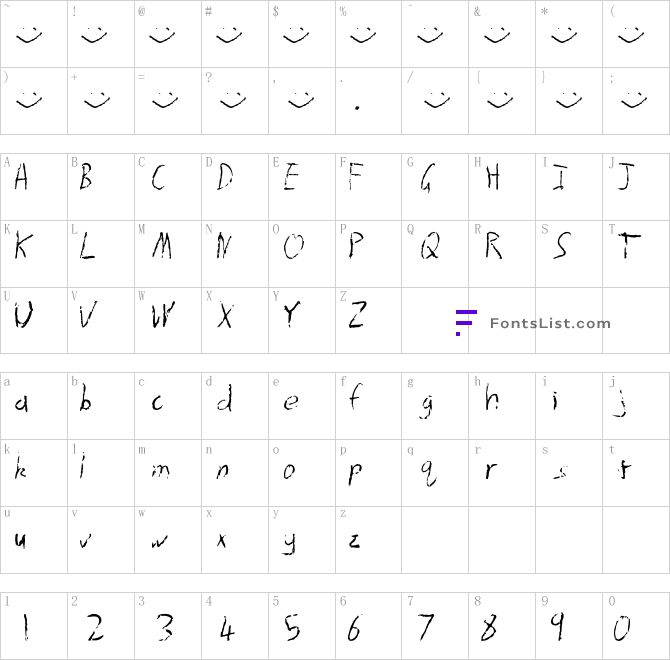
- Font Name:AfterRain
AfterRain.ttf is a very beautiful artistic font, AfterRain.ttf is widely used in the design and printing of various books and pictures,AfterRain.ttf has a strong visual impact,AfterRain.ttf is a commonly used font in newspapers, magazines and books, and is used in posters, e-commerce Poster design, store design, logo design, font design and other fields.AfterRain.